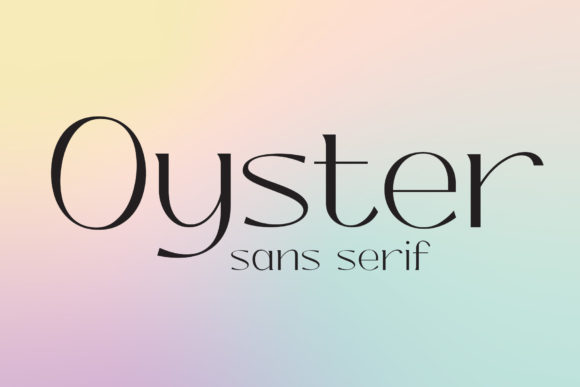
Oyster Font
Oyster is a delicate and elegant serif font. It is PUA encoded which means you can access all of the glyphs and swashes with ease! Add it confidently to your favorite creations and let yourself be amazed by the outcome generated.